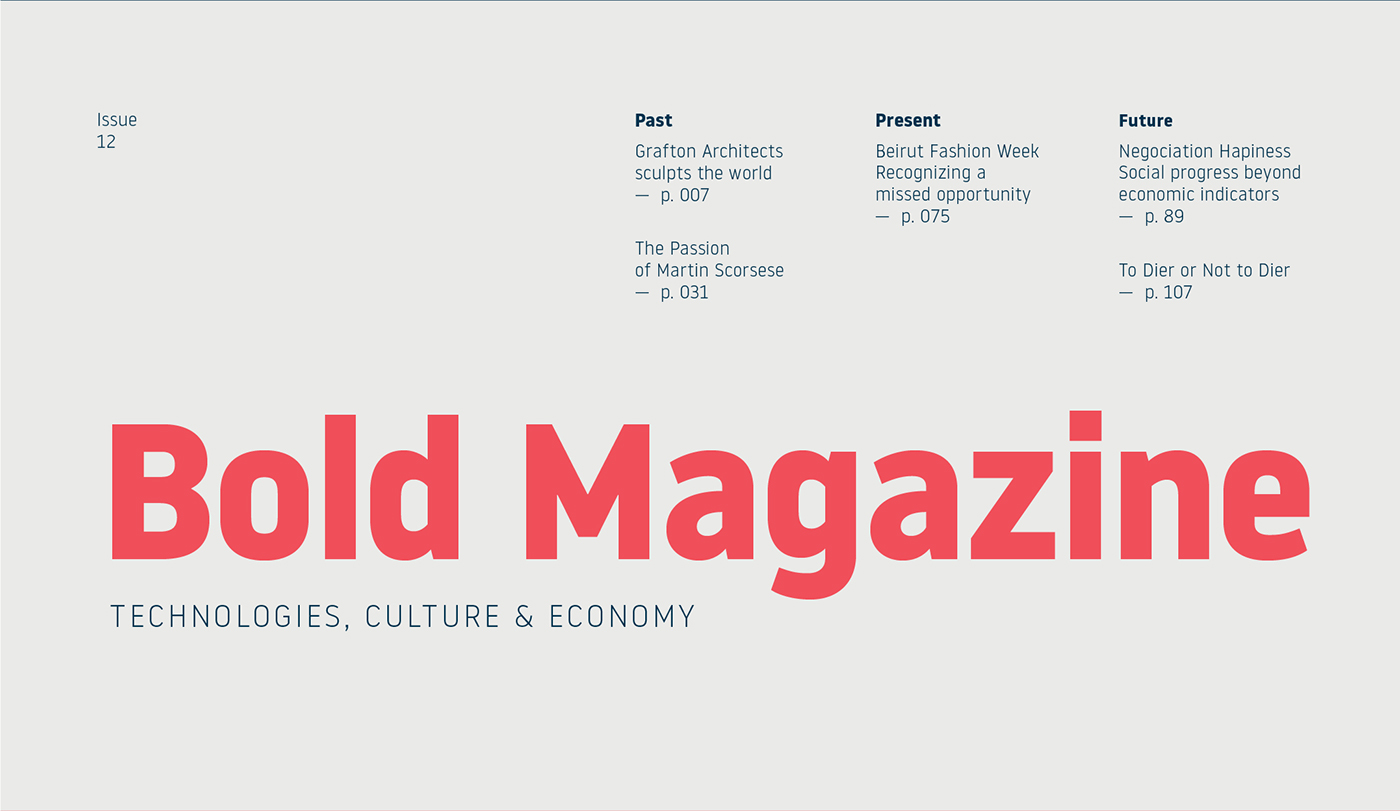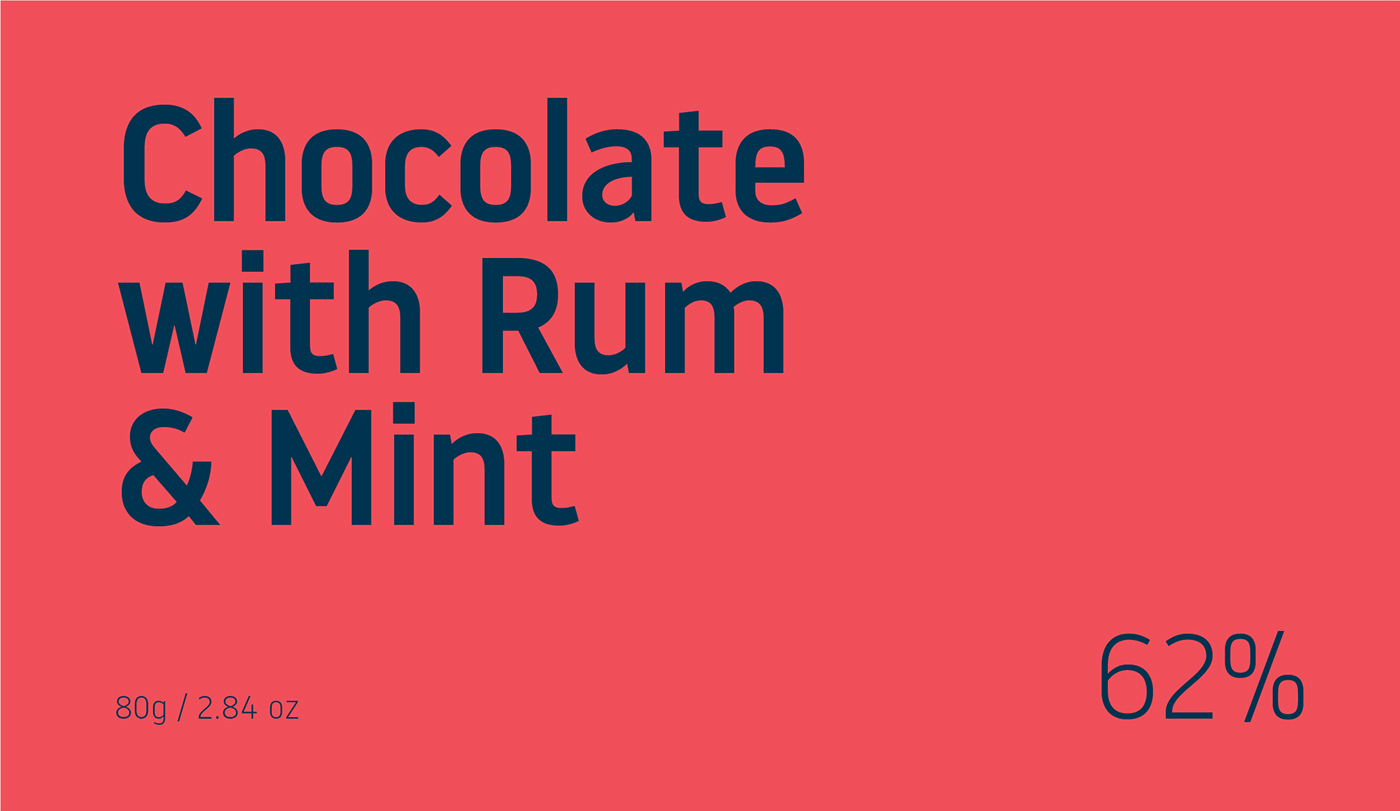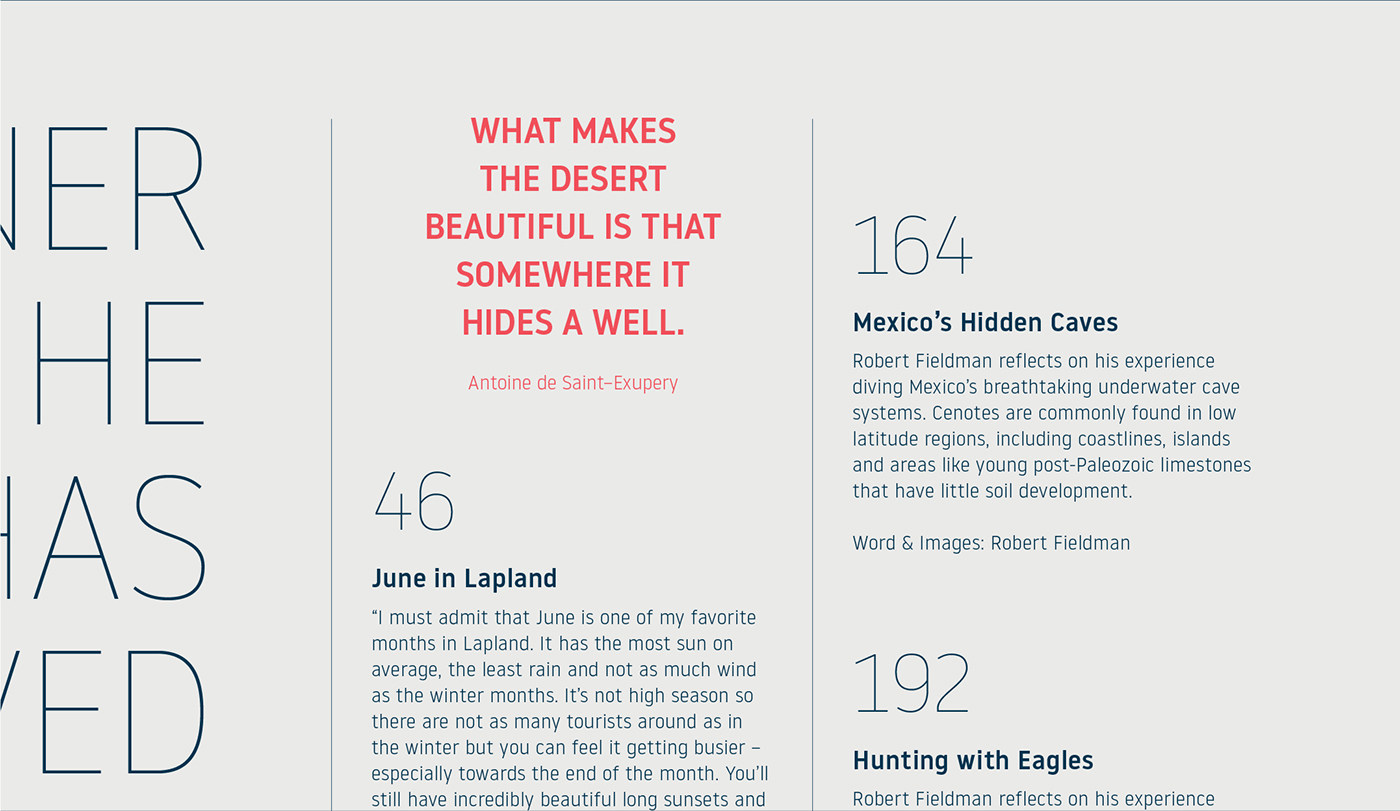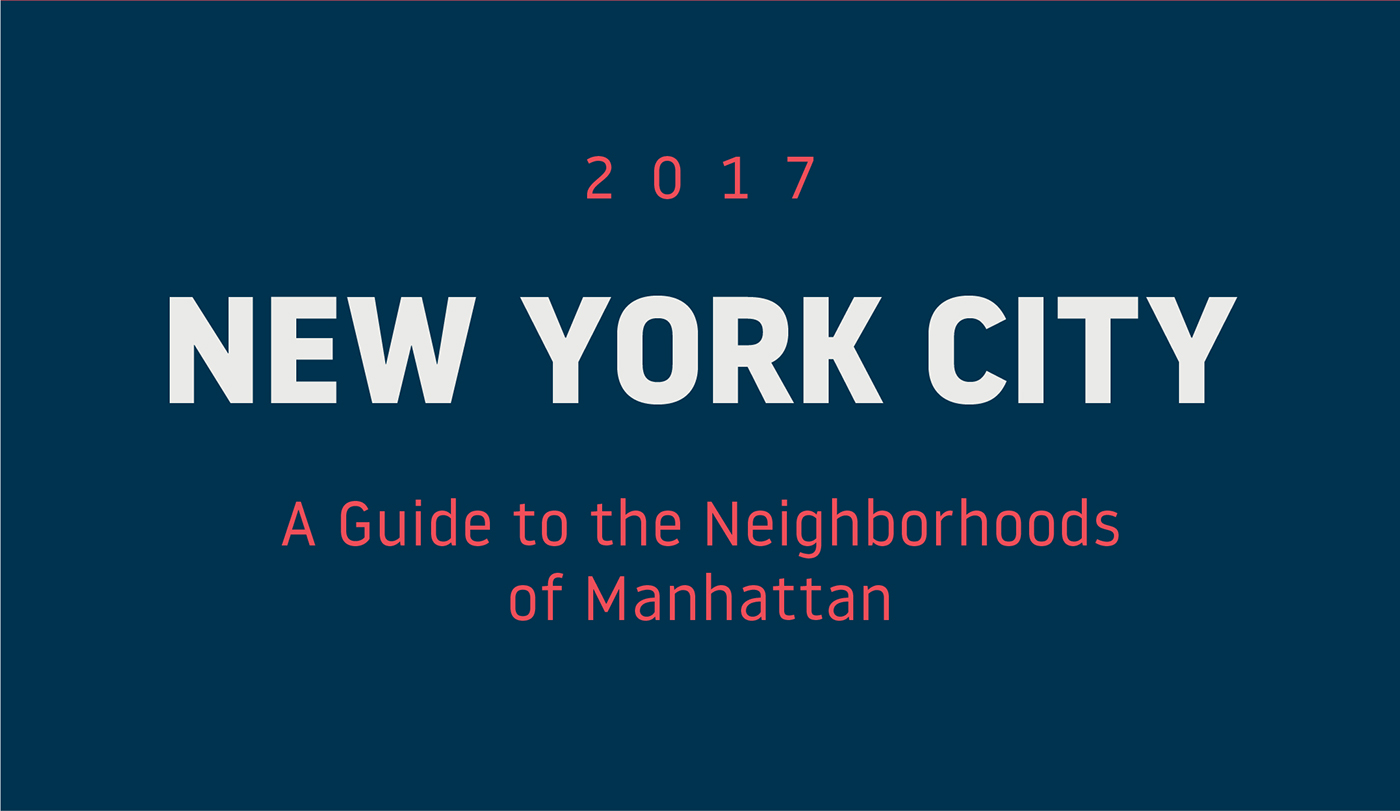
Noway Font Family
Befonts introduce to you the set of fonts, introduction Noway Font Family! Noway designed by atipo ®. Noway was originally designed as a corporate and signage typeface for London Luton Airport. Noway font-family is set up in five weights: thin, light, regular, medium and bold and a pack of 159 icons for every possible user. It is ideally suited for branding, packaging, editorial, wayfinding and signage as well as web and screen design.